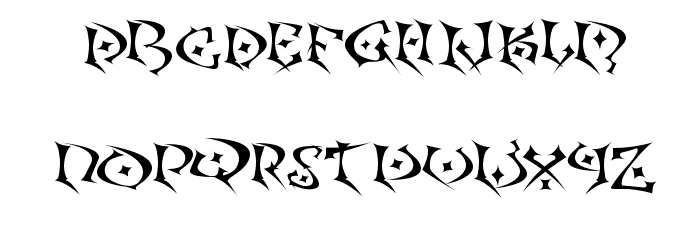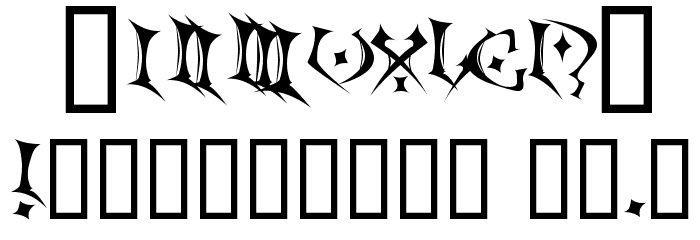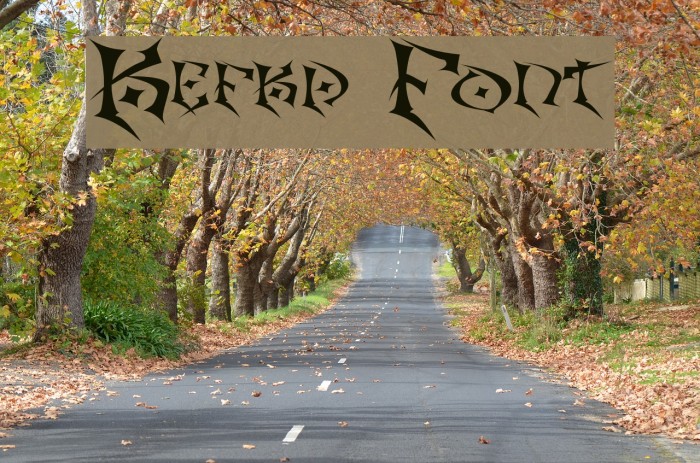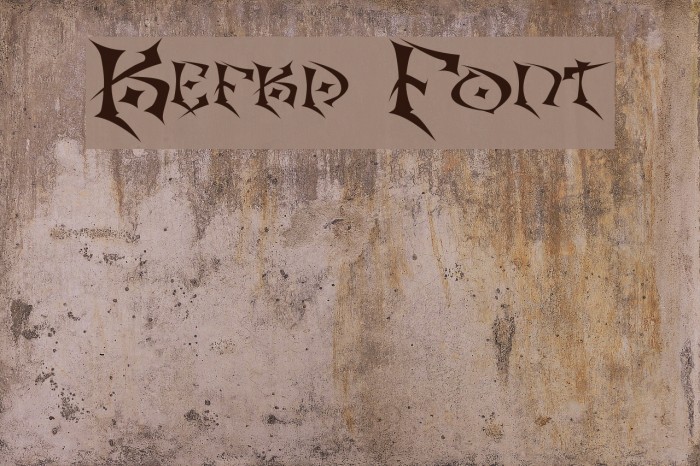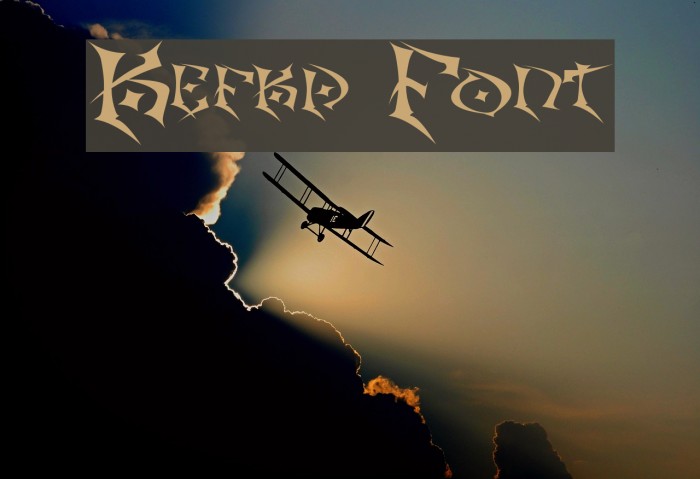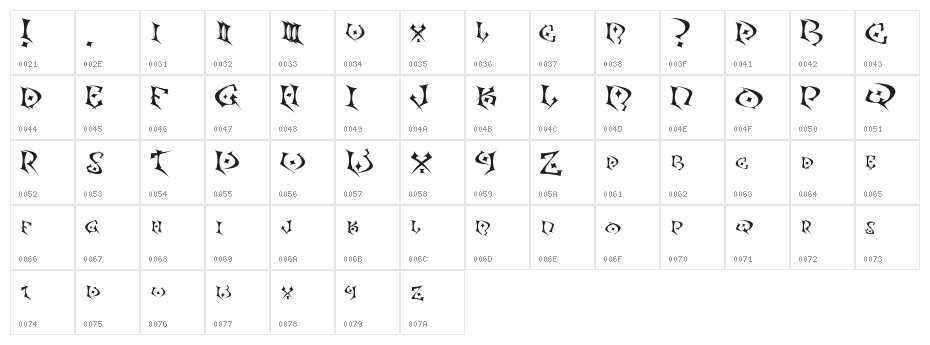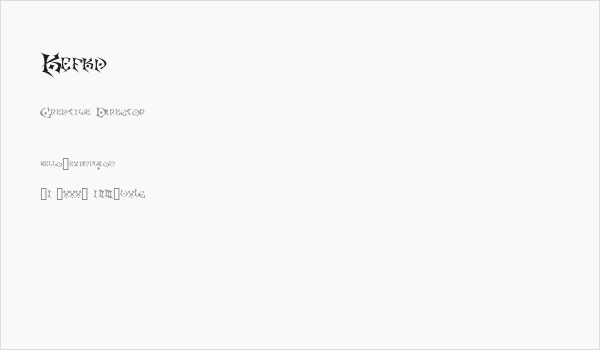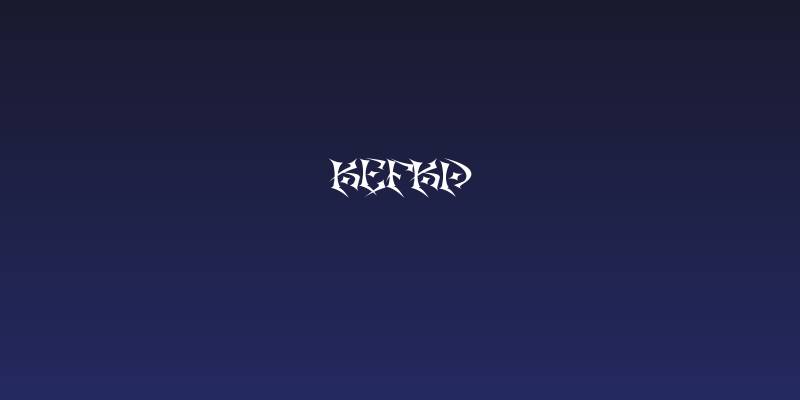
Kefka Font
This font features a bold and aggressive design with sharp, angular edges and a gothic influence. The characters are heavily stylized, giving them a unique, almost tribal appearance. The uppercase and lowercase letters maintain a consistent style, with exaggerated serifs and pointed terminals that create a sense of movement and energy. The numbers and special characters follow the same design principles, ensuring a cohesive look across all glyphs. This font is highly decorative, making it suitable for projects that require a strong visual impact.
A bold, gothic-inspired font with sharp, angular edges and a tribal aesthetic.
- Font: Kefka
- Proposed Projects: Ideal for tattoo designs, band logos, posters, and any project needing a dramatic and edgy look.
- Use Case: Logos, Posters, Headlines